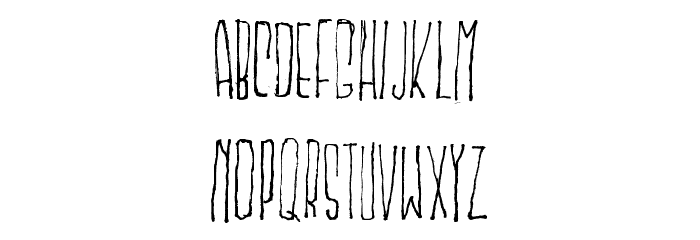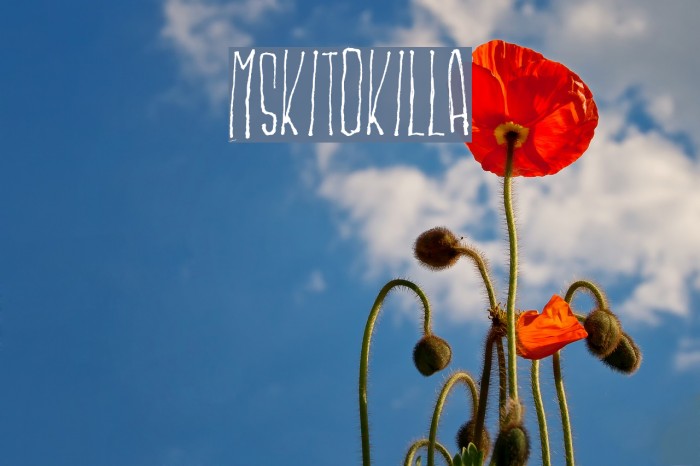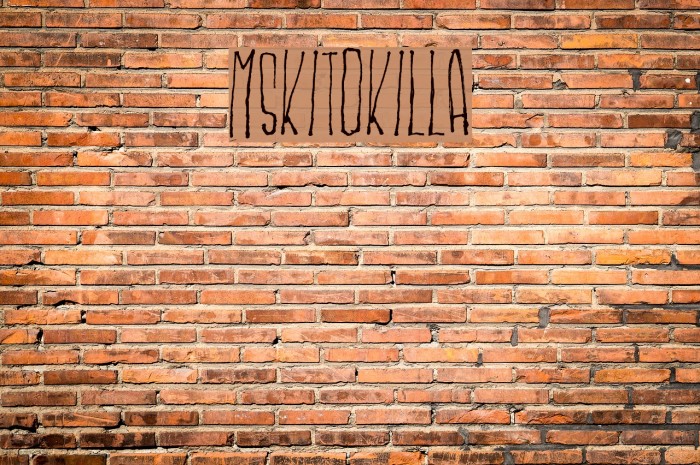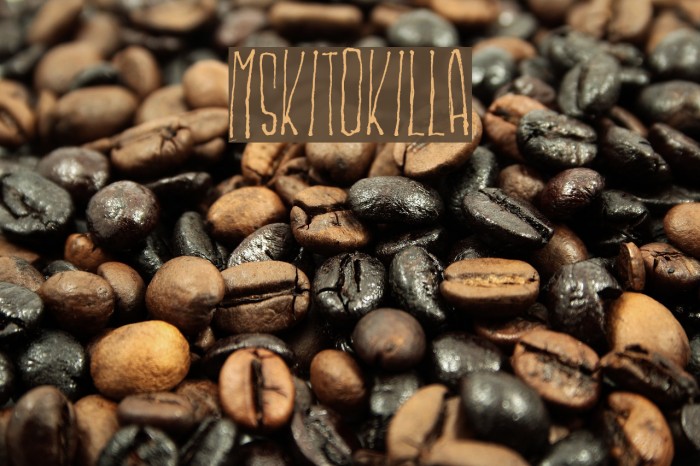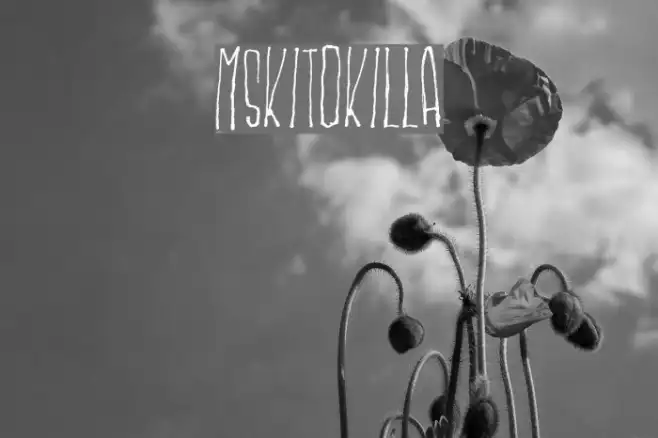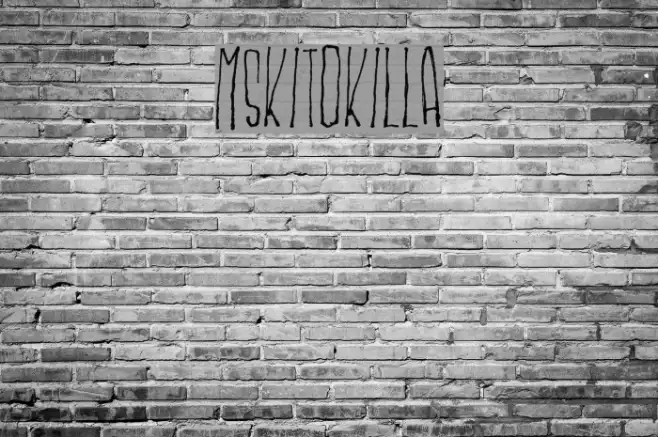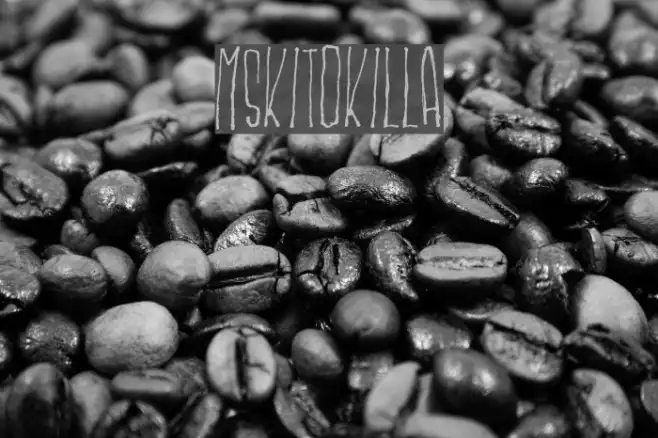
MSKITOKILLA Font
This font features a unique, hand-drawn style with elongated and slightly irregular letterforms, giving it a distinctive, artistic appearance. The uppercase and lowercase letters maintain a consistent height, with a narrow width that emphasizes verticality. The strokes are uneven, adding a textured, organic feel to the text. The numerals and special characters follow the same design principles, ensuring a cohesive look across all glyphs. This font's quirky and creative style makes it stand out, ideal for projects that require a touch of individuality and flair.
A hand-drawn, artistic font with elongated, irregular letterforms and a textured appearance.
- Proposed Projects: Ideal for creative projects such as album covers, posters, artistic branding, and unique invitations.
- Overall Style: Artistic
- Use Case: Logos, Posters, Artistic Branding